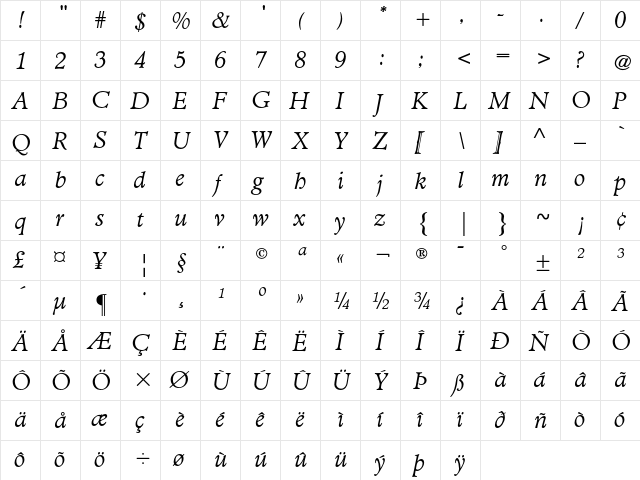
Administer AT Book Italic
Design Context for Administer AT Book Typeface
Administer AT Book offers clean, dependable letterforms without strong stylistic allegiance, making it a practical choice for designers who need flexibility. The dynamic lean of this cut emphasises speed and emphasis in any layout.
Pro Tip: Try Administer AT Book for annotation and caption copy alongside an upright companion — the contrast in angle creates a dynamic but ordered typographic system.